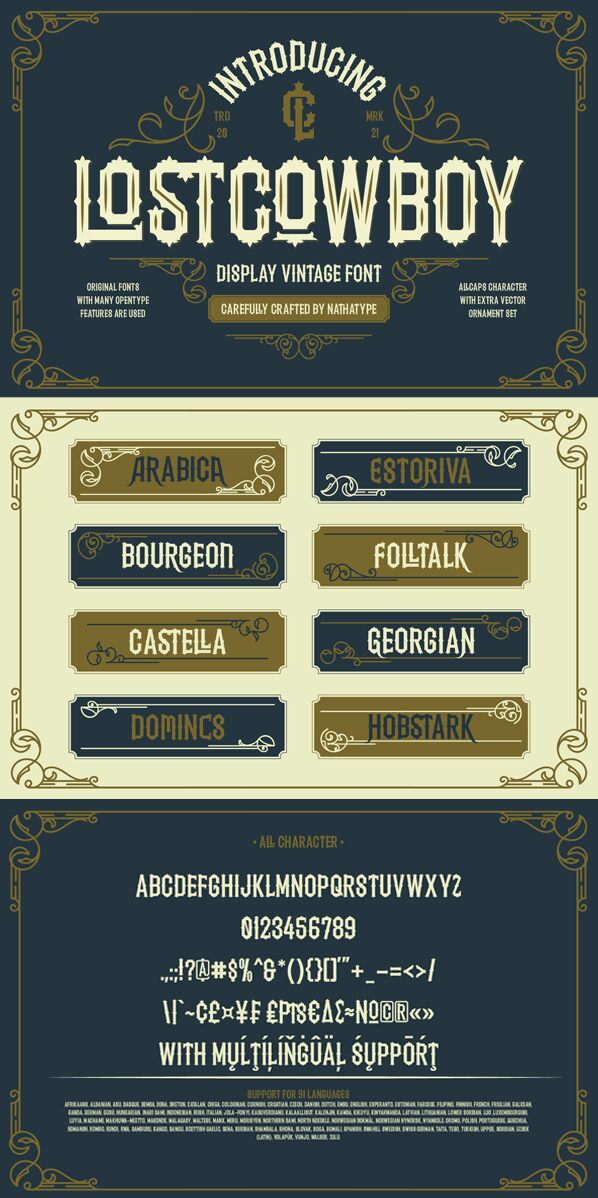
Saddle up and get ready to roam the range with Lostcowboy, the latest display font from Din Studio. With a bold and rugged gothic style, this extra-condensed typeface is perfect for projects that require a touch of western flair. Imagine using it for your next cowboy-themed event invitation or on the cover of a gritty western novel. Its unique design is sure to make any project stand out from the herd. So rustle up some inspiration and let Lostcowboy take you on a wild ride through your next creative endeavor.
Lostcowboy vintage font is a typeface that is made all characters in uppercase. An excellent choice to add the right amount of retro touch. This typeface with artistic style looks very interesting for loads of different projects and promotions. Suitable for any graphic designs such as logo, book cover, poster, t-shirt, branding, and advertisement needs.